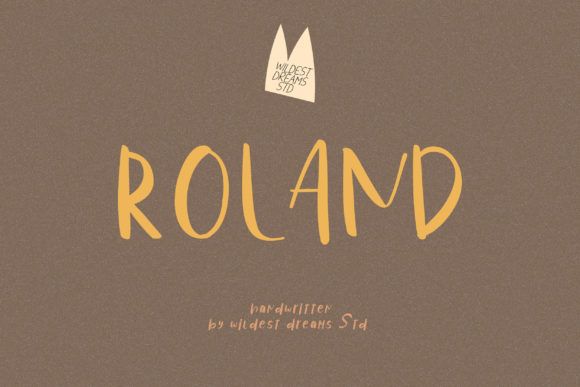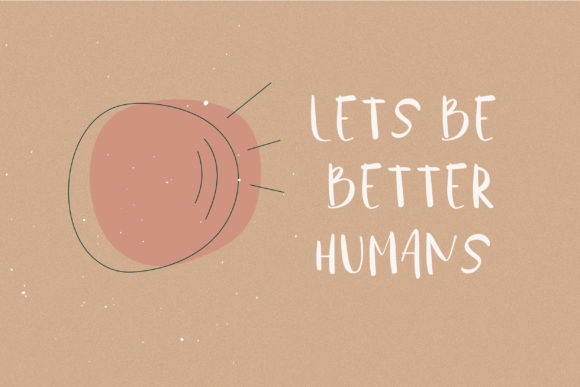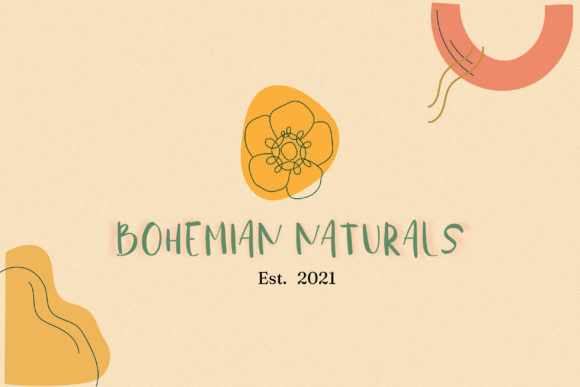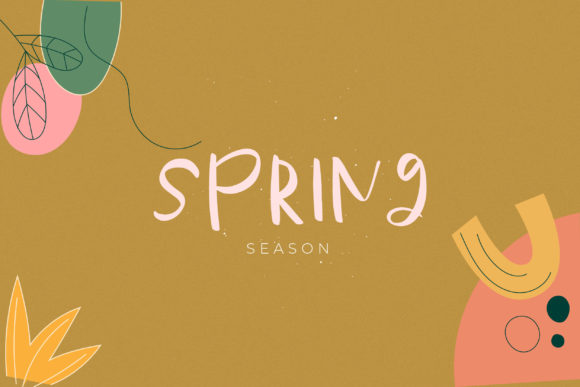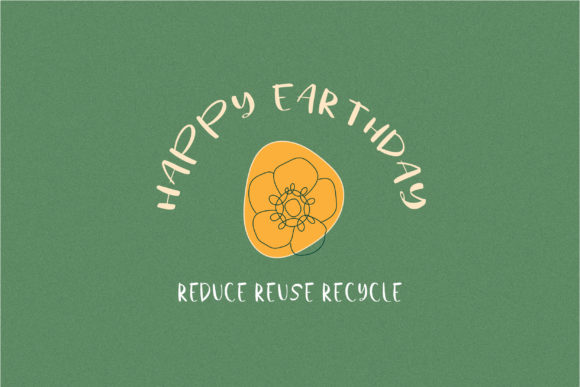
Roland
About Roland Font
Roland is a cute, relaxed and fun handwritten font. Whether you use it for cartoon related designs, children games or just any creation that requires a lovely touch, this font will be an amazing choice.